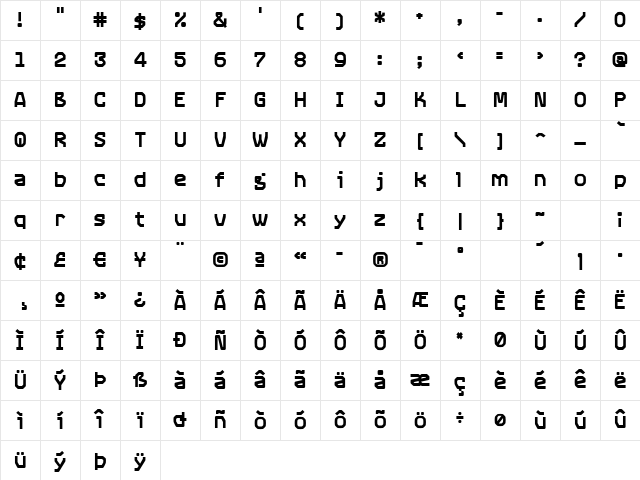
RangeExtraBold is a composed and adaptable typeface that performs quietly and consistently across a wide range of design contexts. Its bold stroke weight gives it real presence on the page.